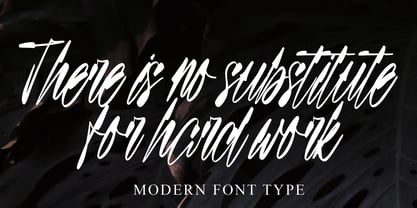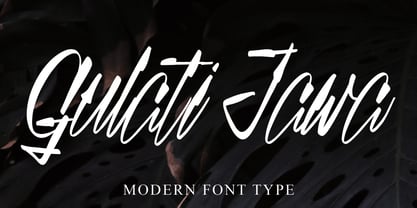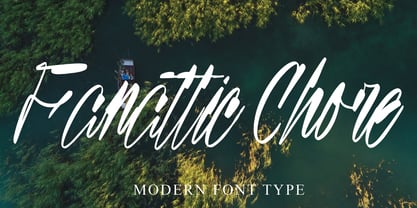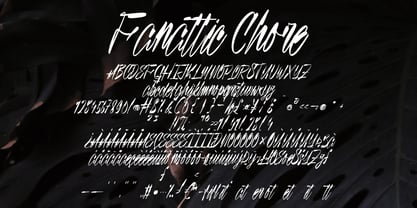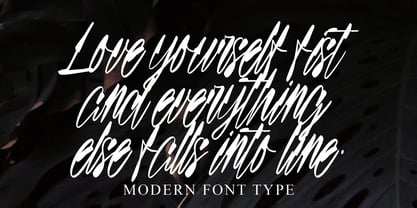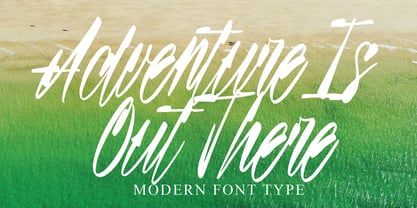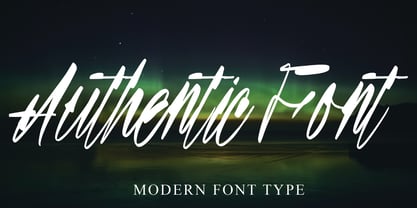
Sinteria Kilyan
by Naatypo
The Sinteria Kilyan Font Family was designed by Kurnia Elis Setyorini and published by Naatypo. Sinteria Kilyan contains 1 styles. More about this family
Highlight your designs with the unassuming elegance of Sinteria Kilyan, a charismatic handwriting-inspired font. Its sincere charm and natural flow effortlessly breathe life into your creative projects, enhancing their appeal. With Sinteria Kilyan, the charisma of your invitation cards is amplified, the affection in your greeting cards becomes more palpable, and the uniqueness in your brand identities is underscored. This free-flowing script font lends an air of graceful sophistication to your creations without compromising on its inviting and relaxed vibe. Sinteria Kilyan - a font woven with individuality, designed to complement your work with a relaxed yet stylish flair.
Designers: Kurnia Elis Setyorini
Foundry: Naatypo